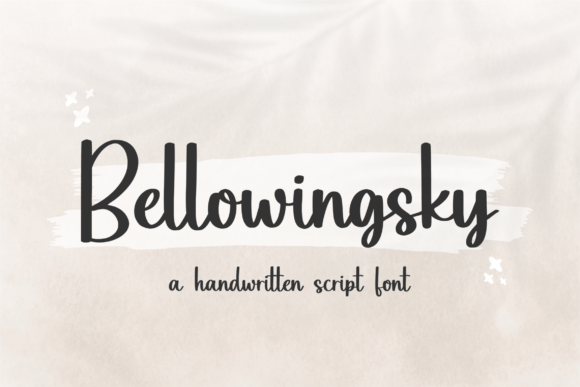
Discovering the Perfect Font: A Designer’s Dream
Have you ever stared at a blank page, pencil in hand, waiting for the perfect idea to strike? For designers, those moments of creative clarity can be the spark that sets a project ablaze. It’s the thrill of bringing a concept to life, and the Bellowingsky Font is the perfect tool to ignite that spark.
As a modern handwritten font, Bellowingsky is designed to add a touch of elegance and whimsy to any project. Whether you’re crafting product packaging, branding materials, or social media posts, this font is the perfect addition to your design toolkit. With its PUA encoding, accessing all glyphs and swashes is a breeze, making it a valuable asset for designers who want to add a personal touch to their work.
Bellowingsky Font Key Features
- Unique Characteristics: Bellowingsky Font features a distinctive, hand-drawn style with bold lines and elegant curves, making it suitable for use in creative, artistic, and design-oriented projects.
Bellowingsky Font Review
I recently had the chance to work with the Bellowingsky font, and overall, I’m impressed with its unique charm. ✨ The font’s blend of modern and vintage elements creates a captivating atmosphere, perfect for projects that need a touch of elegance and sophistication.
The Bellowingsky font shines in its use for headings and titles, where its bold and eye-catching characteristics really come into play. ✨ The font’s high contrast and subtle texture add depth and visual interest, making it a great choice for designers looking to create memorable brand identities.
While the Bellowingsky font has its strengths, there are some limitations to consider:
- ⚠️ Limited character set: The font’s character set is relatively small, which may limit its use for longer texts or complex content.
- ⚠️ Not suitable for body text: Due to its bold and eye-catching nature, the Bellowingsky font may not be the best choice for body text or large blocks of text.
- ⚠️ May not be accessible: The font’s unique design may not be accessible for readers with visual impairments or those who rely on screen readers.
Overall, I think the Bellowingsky font is a great addition to any designer’s toolkit, but it’s essential to understand its limitations and use it judiciously.
The Bellowingsky Font is ideal for creating eye-catching headlines and titles. Use it to add a touch of elegance and sophistication to your designs. Common use cases include:
- Event banners and posters